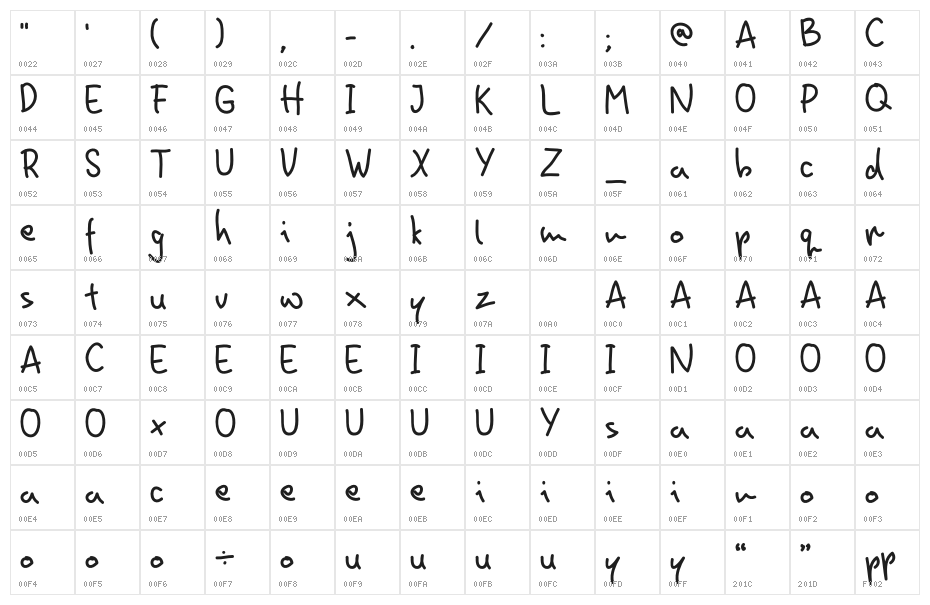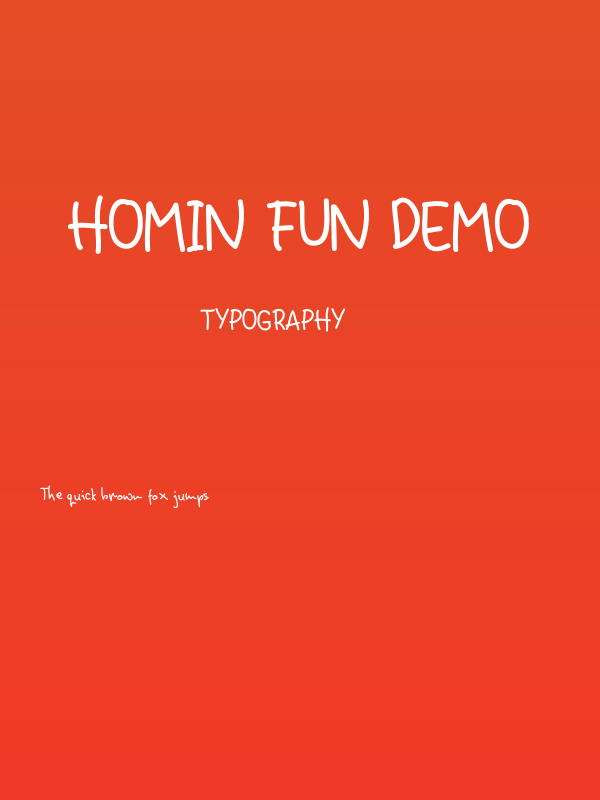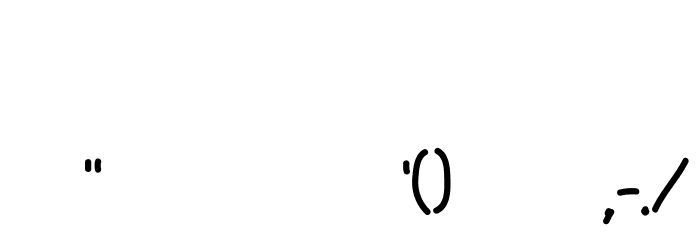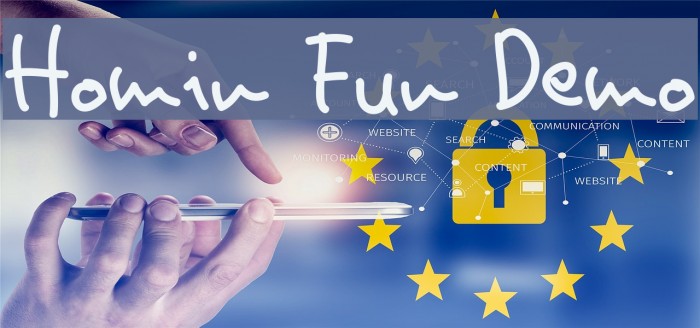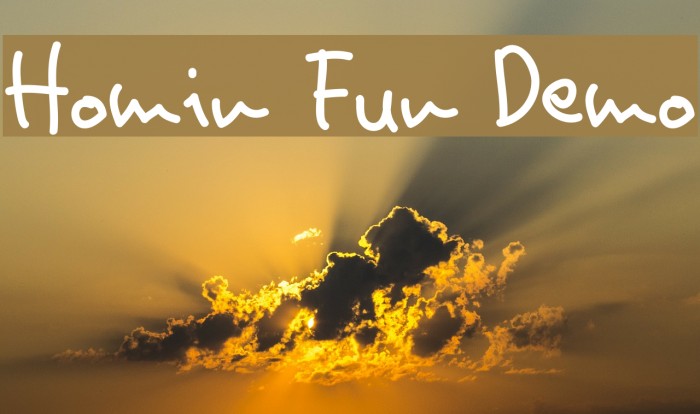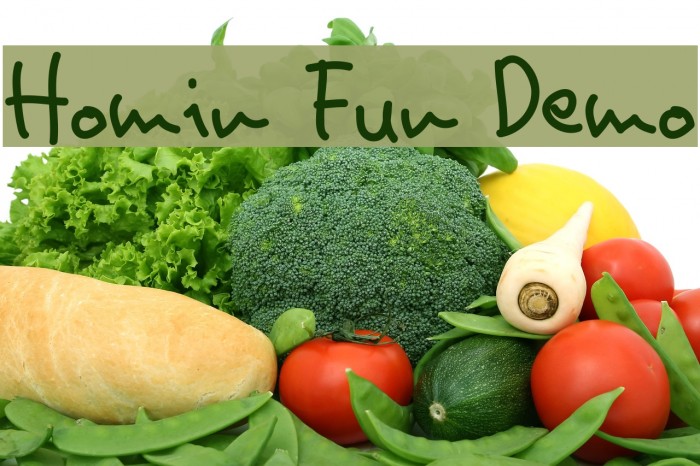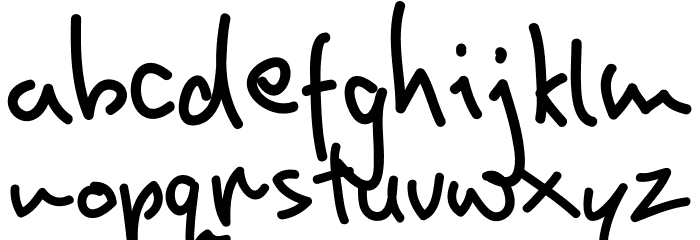
Homin Fun Demo Font
Homin Fun Demo Description
This font exhibits a playful and casual handwritten style, characterized by its irregular strokes and informal appearance. The uppercase letters are bold and slightly uneven, giving a sense of spontaneity and creativity. The lowercase letters maintain a consistent flow, with some characters extending below the baseline, adding to the font's dynamic nature. The numbers and special characters follow the same playful theme, making this font suitable for projects that require a personal touch. Its overall appearance is friendly and approachable, ideal for conveying a sense of fun and informality.
| Proposed Projects | Ideal for children's books, greeting cards, informal invitations, and playful branding. |